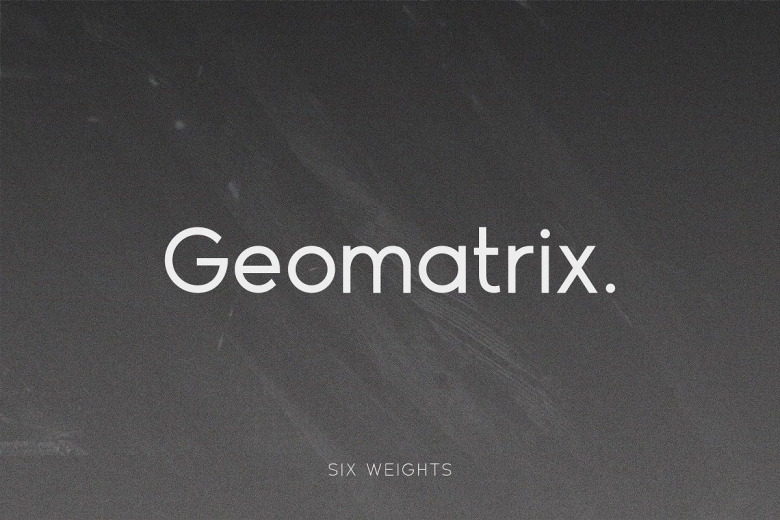
Geomatrix Font Family
Geomatrix Font
Geomatrix is a geometric sans serif font family who dares the modernism and the harmony of the curves. It has very open terminals that makes this font family elegant, friendly and contemporary. The typeface is versatile and can be successfully used in Magazines, Posters, Branding, Websites etc. It can meet the needs of professionals who want a family of clean geometric font.
Geomatrix Sans Serif Font Family